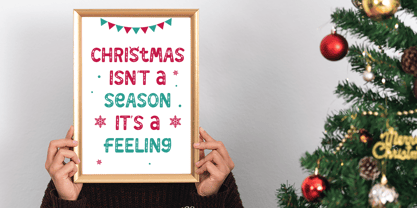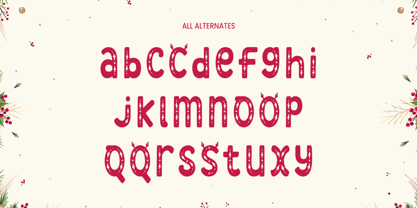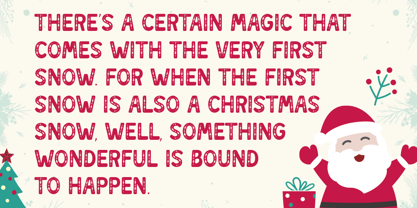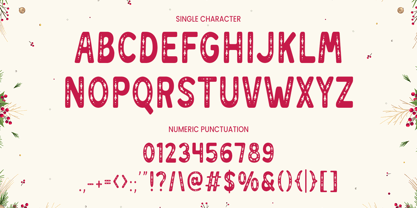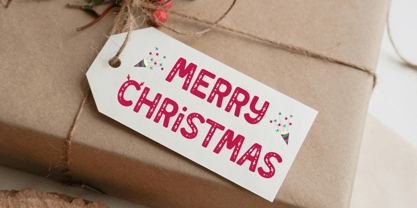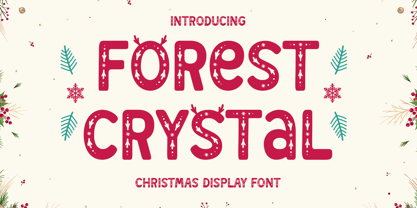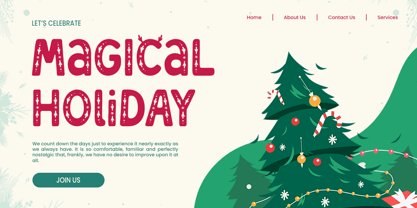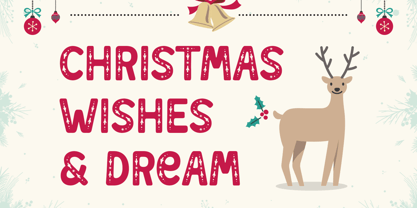
DT Forest Crystal
by Dryy Type
The DT Forest Crystal Font Family was designed by Rian Dryana and published by Dryy Type. DT Forest Crystal contains 1 styles. More about this family
DT Forest Crystal Font
Display font that has a unique character theme and is suitable for use for Christmas themes. DT Forest Crystal Font is a font that is very suitable for use in the spirit of Christmas and long holidays. The font I created is very versatile, and fits various designs, making it the best. Add this font to your favorite creative ideas and see the results!
Features: Singlecase, Punctuation Numbers, Alternate & Multilingual Support
Designers: Rian Dryana
Foundry: Dryy Type